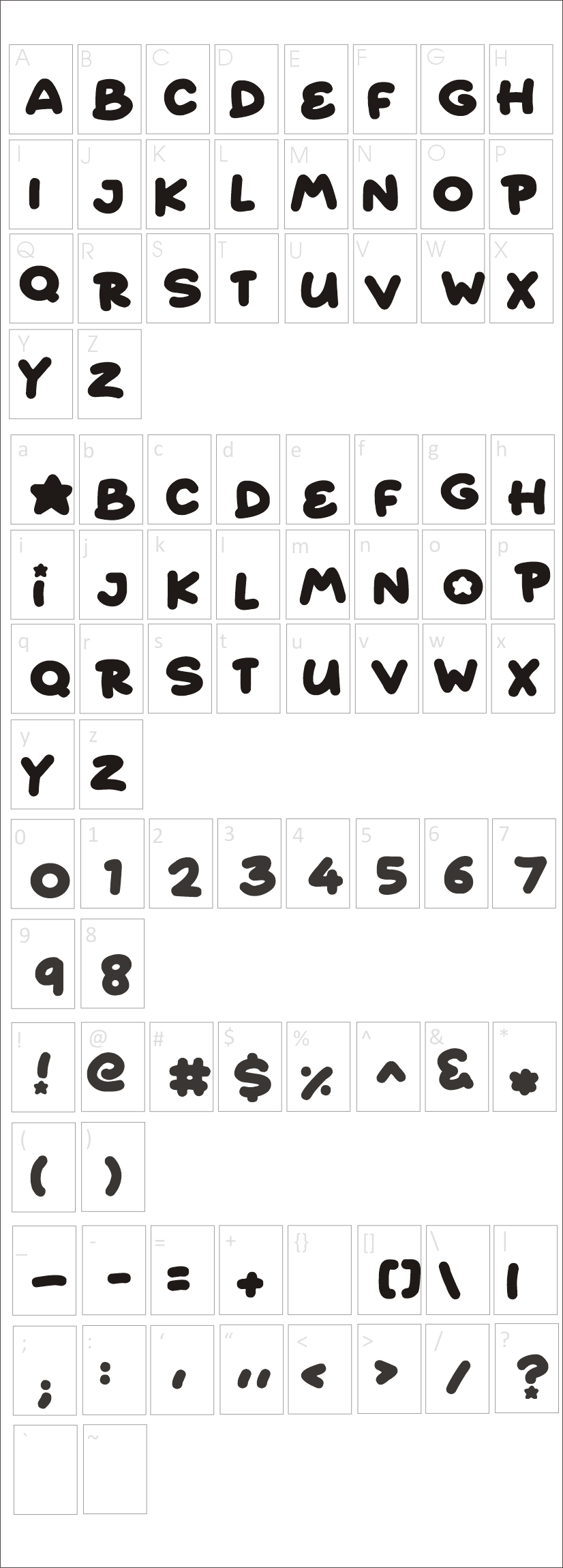
Starborn font is a captivating font family inspired by the vastness of space and the celestial bodies that inhabit it. With its unique glyphs, cosmic-themed characters, and ethereal atmosphere, Starborn is perfect for creating a sense of wonder, mystery, and adventure.
Key Features of Starborn Font Family:
- Cosmic-Inspired Design: Starborn’s glyphs feature celestial elements like stars, planets, and galaxies, adding a touch of otherworldly charm.
- Ethereal Atmosphere: The font’s soft and flowing lines create a sense of mystery and enchantment.
- Versatile Usage: Starborn can be used for a variety of projects, including branding, website design, gaming, and creative writing.
- Multiple Weight Options: The font family includes various weight options (e.g., Regular, Bold, Italic), allowing you to find the perfect style for your specific needs.
Uses for Starborn Font Family:
- Branding: Use Starborn for logos, business cards, and other branding materials to create a unique and memorable identity.
- Website Design: Incorporate Starborn into your website design for a cosmic and ethereal feel.
- Gaming: Use Starborn for game titles, character names, and other in-game elements to enhance the immersive experience.
- Creative Writing: Pair Starborn with your creative writing projects to add a touch of magic and wonder.